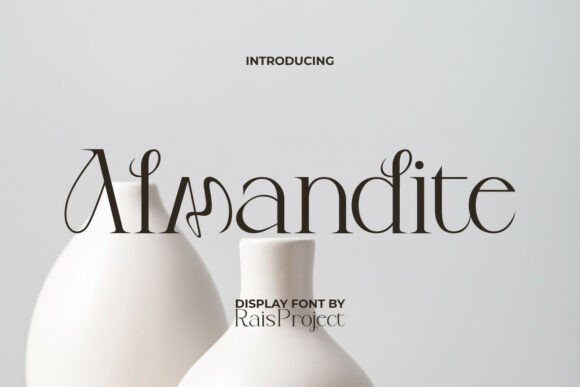
The Almandite Font: Elevate Your Designs with Elegance
I’ll never forget the time I was working on a fashion brand’s logo, struggling to find the perfect font that exuded elegance and sophistication. The client wanted something that would stand out, yet remain refined and luxurious. That’s when I stumbled upon the Almandite font, and it instantly became my go-to choice. In this article, I’ll share my experience with this beautiful sans-serif display font, its features, and how to make the most of it in your designs.
What Makes Almandite Special?
Almandite, designed by RaisProject, is a stunning sans-serif display font that boasts a unique swirl element, giving it an outstanding aesthetic. Its elegant and sophisticated style makes it an excellent choice for a wide range of creative projects, from brand images and product packaging to invitations and magazines. The font is particularly well-suited for industries such as fashion, beauty, jewelry, and publishing.
Key Features of Almandite
- Full set of uppercase and lowercase characters
- Numerals and punctuation
- ✨ Elegant and sophisticated design
- ✅ Highly versatile for various creative projects
- 💫 Unique swirl element for added visual interest
- ⚠️ Limited use for body text due to its display font nature
The Story Behind Almandite
RaisProject, the designer behind Almandite, aimed to create a font that would exude elegance and sophistication. Inspired by the beauty of almandite, a type of garnet, the designer sought to capture its luxurious essence in a typeface. The result is a font that is both refined and eye-catching.
Q: What is Almandite’s primary use?
A: Almandite is primarily designed as a display font for headings, titles, and short text, making it perfect for branding, packaging, and editorial design.
Q: Is Almandite suitable for body text?
A: Due to its elegant and sophisticated design, Almandite is not recommended for long-form body text. It’s best used for display purposes.